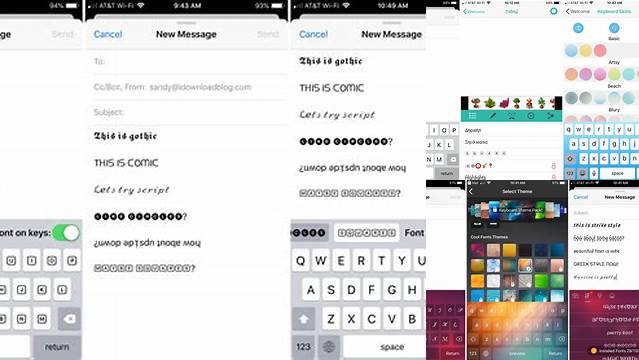
Best Free Font Keyboards For IPhone
Hey guys! Ever feel like your iPhone's keyboard is just a little... bland? You're not alone! We all crave a little pizzazz in our digital communication, and what better way to do that than with some cool fonts? Forget those boring system defaults! Today, we're diving deep into the world of the best free font keyboards for iPhone. Get ready to transform your texts, social media posts, and everything in between with a touch of personality. We'll explore the top apps, how to use them, and why they're total game-changers. So, buckle up, buttercups, because it's time to unleash your inner font aficionado!
Why Bother with Font Keyboards, Anyway?
Okay, so you might be thinking, "Why do I even need a font keyboard? My iPhone keyboard works just fine!" And you're right – it does work fine. But let's be honest, "fine" is boring! Font keyboards are all about adding a layer of creative expression to your digital life. Think of them as the ultimate accessory for your iPhone. They allow you to:
- Stand Out from the Crowd: In a sea of generic texts, a unique font immediately grabs attention. It's like wearing a neon shirt to a black-tie event – you're bound to be noticed!
- Express Your Personality: Fonts have personality! A playful font might be perfect for your best friend, while a sleek, modern font is ideal for professional communications.
- Boost Your Social Media Game: Want your Instagram stories or TikTok captions to pop? Font keyboards are your secret weapon. They help you create visually stunning content that stops the scroll.
- Add a Touch of Fun: Let's face it, sometimes you just want to have fun with your text! Font keyboards make texting a more enjoyable and engaging experience.
Beyond the fun, there's a practical side to using font keyboards. They can make your messages easier to read for certain people, or make your posts more accessible. Fonts can also be used to categorize your messages. Different fonts can be used to signal different levels of importance. Plus, they're just cool! Let's be real. You're here because you want to have a little fun, and we're here to help you. We have provided some great options to begin your journey into the world of font keyboards. So keep reading to find the best apps for you!
Top Free Font Keyboard Apps for iPhone
1. FontKey – Cool Fonts
FontKey is a popular choice for a reason. It's super user-friendly, with a vast library of fonts to choose from. They offer a wide range of styles, from elegant and sophisticated to quirky and playful. The interface is clean and easy to navigate, making it a breeze to find the perfect font for your needs. It integrates seamlessly with your iPhone's keyboard, so switching between fonts is quick and effortless. FontKey is compatible with most social media platforms and messaging apps, so you can use your new fonts wherever you go. The app is updated regularly with new fonts and features, so there's always something fresh to try. The free version provides a ton of value, including access to many fonts and basic customization options. If you want even more options, you can always upgrade to the premium version to unlock even more styles and features. Overall, it's one of the best options for those who want variety and ease of use!
2. Fonts - Keyboard
Fonts - Keyboard is a strong contender in the font keyboard arena, offering a solid selection of stylish and unique fonts. This app has a straightforward, no-frills interface that makes finding and using fonts simple. While it may not have as many fonts as some other apps, the quality is high. The fonts offered by Fonts are consistently well-designed and visually appealing. The app integrates well with popular social media platforms and messaging apps, allowing you to easily use your new fonts. Fonts - Keyboard also offers additional customization options, such as the ability to adjust font size and spacing. It is a reliable, user-friendly choice for those who prioritize font quality and ease of use. This app also has a great range of symbols and emojis! This will enhance your messages even more. Although you have to upgrade for premium features, the base version is more than enough to get you started.
3. Stylish Text
Stylish Text is all about, well, being stylish! This app has an awesome selection of fonts! It's known for its sleek and modern design, and it has a great selection of fonts that are perfect for making your text stand out. Stylish Text makes it easy to preview your text in different fonts before you send it. This lets you see exactly how your message will look. The interface is intuitive, which allows for a seamless font-switching experience. The app works across various platforms. It also includes extra features, such as a text repeater, which lets you copy a message over and over, and the ability to create your own custom fonts. With Stylish Text, you can be sure your messages will be nothing short of stylish. This app has an immense amount of options, and the paid version is also worth the price. Overall, it's a fun and effective tool to give your texts an extra touch of flair.
How to Use a Font Keyboard on Your iPhone: A Step-by-Step Guide
So, you've downloaded a font keyboard app. Awesome! But how do you actually use it? Don't worry, it's super easy. Here's a simple, step-by-step guide:
- Download and Install: First, download your chosen font keyboard app from the App Store and install it on your iPhone.
- Enable the Keyboard: Go to your iPhone's Settings app. Tap on "General," then "Keyboard," and then "Keyboards." Tap "Add New Keyboard…" and select the font keyboard app you just downloaded. This adds it to your list of available keyboards.
- Allow Full Access (Optional): Some font keyboard apps require "Full Access" to function properly. You can enable this in the Keyboards settings by tapping on the font keyboard app in your list of keyboards and toggling on the "Allow Full Access" switch. Keep in mind that this grants the app more access to your data, so only do this if you trust the app and have read its privacy policy.
- Switch Keyboards: Open any app where you can type text, like Messages or Instagram. Tap on the text input field to bring up the keyboard. Look for the globe icon (or the emoji icon) at the bottom left of your keyboard. Tap this icon repeatedly to cycle through your installed keyboards. When you see the font keyboard app's keyboard, you're ready to start typing in your new fonts!
- Type and Send: Select your desired font from the font keyboard app's interface. Then, start typing! Your text will appear in the chosen font. When you're done, send your message as usual.
Pro-Tip: You can usually switch back to your standard keyboard by tapping the globe or emoji icon again. It makes using the feature seamless.
Sometimes, things don't go as planned. Here are a few troubleshooting tips to resolve common issues you might encounter when using font keyboards:
- Font Not Showing Up: Make sure you've correctly enabled the keyboard in your iPhone's settings (as described above). Also, make sure the app is updated to the latest version, as this often fixes bugs. If the font still isn't showing up, try restarting your iPhone.
- Keyboard Not Switching: Double-check that you're tapping the globe or emoji icon to switch keyboards. Make sure you've added the font keyboard to your list of available keyboards in the settings. Sometimes, a simple restart of your iPhone can resolve this issue.
- App Not Working Properly: Close the app completely and reopen it. If that doesn't work, try deleting and reinstalling the app. Make sure you have a stable internet connection when using the app, as it may need to download fonts or updates.
- Font Not Supported on a Platform: Some platforms or apps might not fully support all fonts. If a font isn't displaying correctly, try a different one. It's also worth checking if the platform has any restrictions on custom fonts.
- Privacy Concerns: If you're worried about privacy, read the app's privacy policy before granting it full access. Only enable full access if you trust the app, and be mindful of what you type when using the font keyboard.
Unleash Your Creativity!
Using a font keyboard is a super easy way to give your iPhone’s text a makeover. From adding a little bit of flair to making your social media posts look amazing, a good font keyboard is a necessity. The best free font keyboard apps for iPhone are incredibly easy to get started with. There are a lot of options, so it is up to you to decide which font keyboard is the best. We hope this guide has been helpful, and we are so excited to see the cool things you create! So, go forth, experiment, and let your creativity shine through your fonts. Happy texting, everyone!